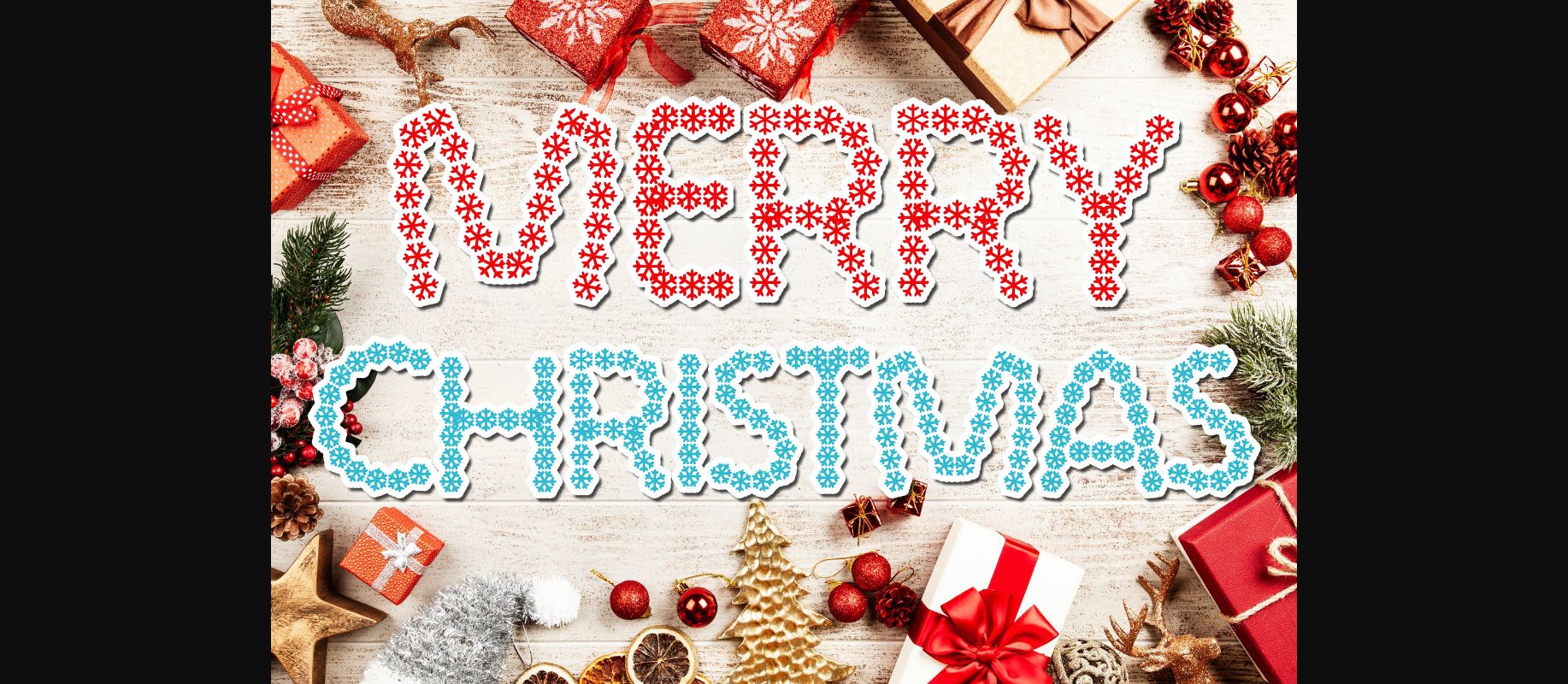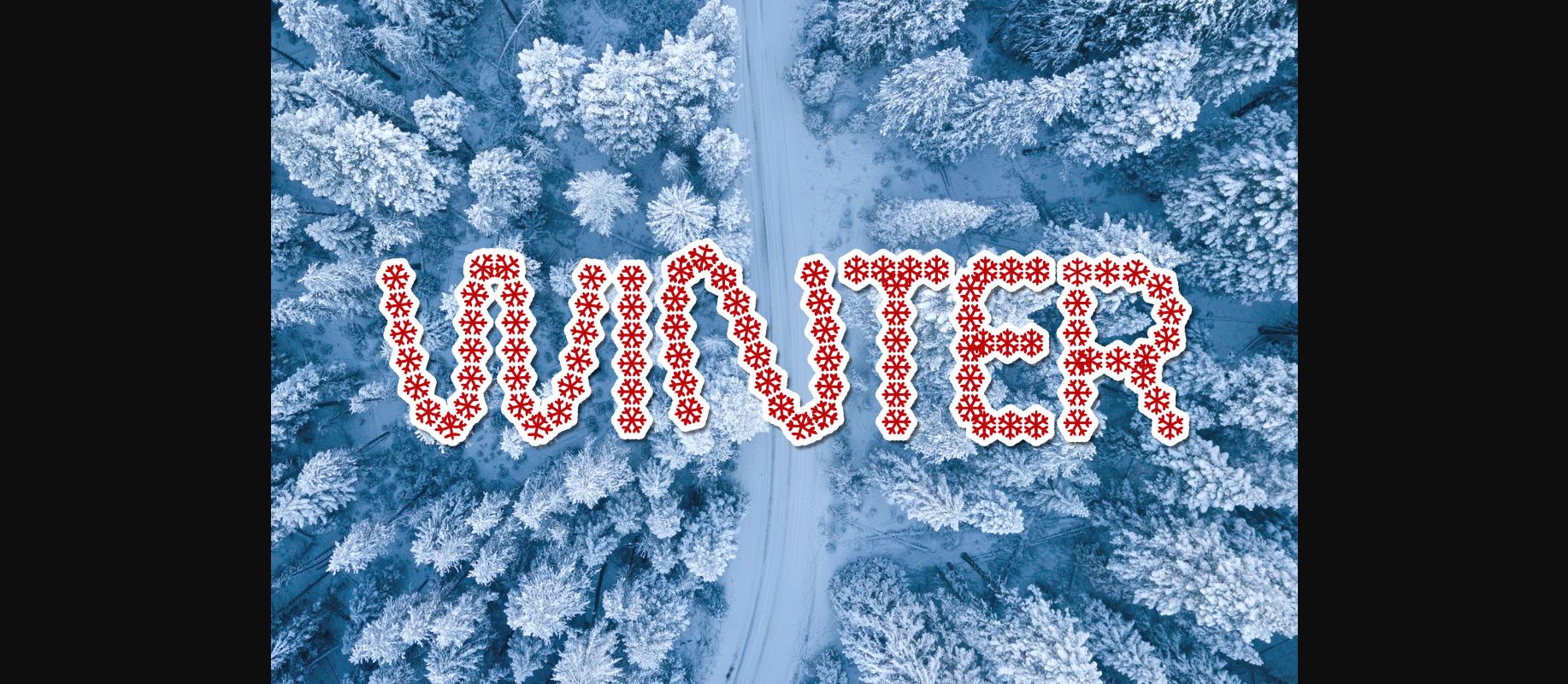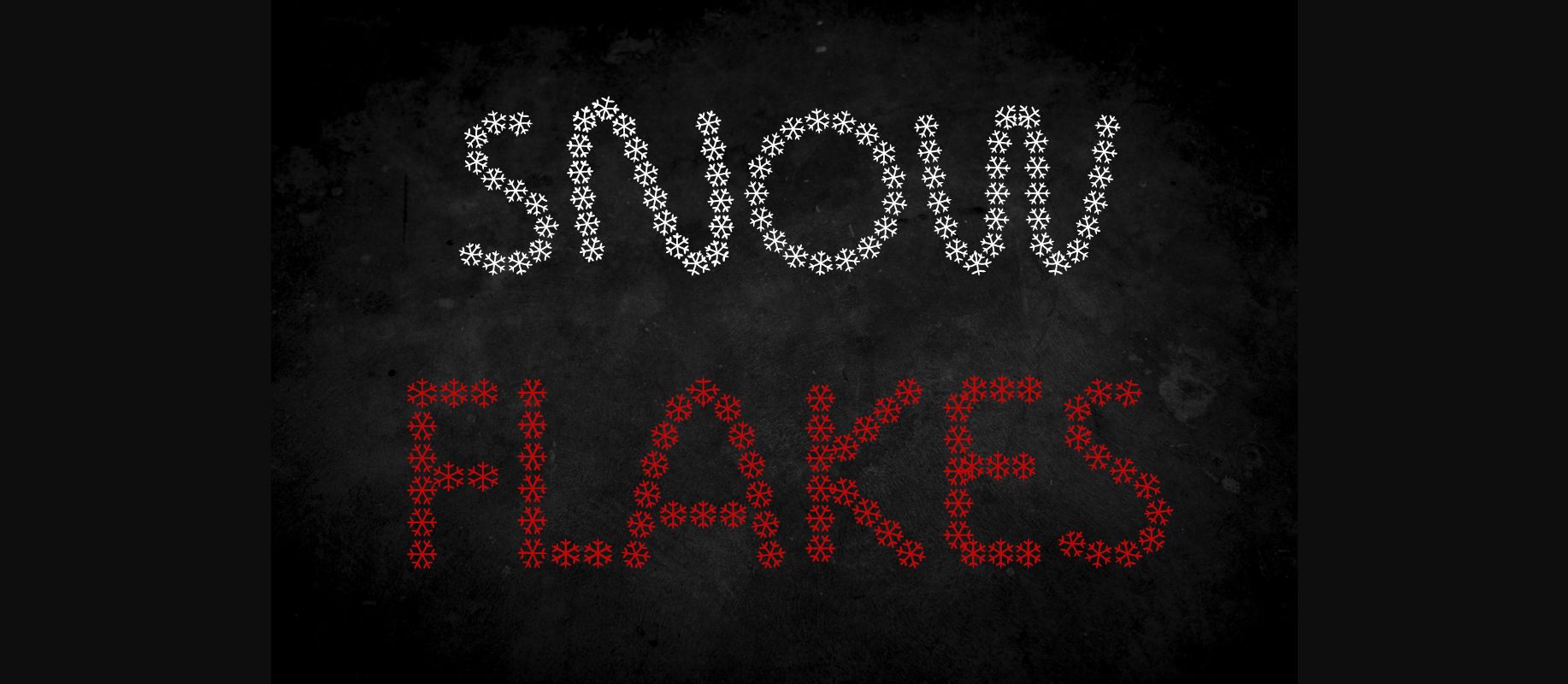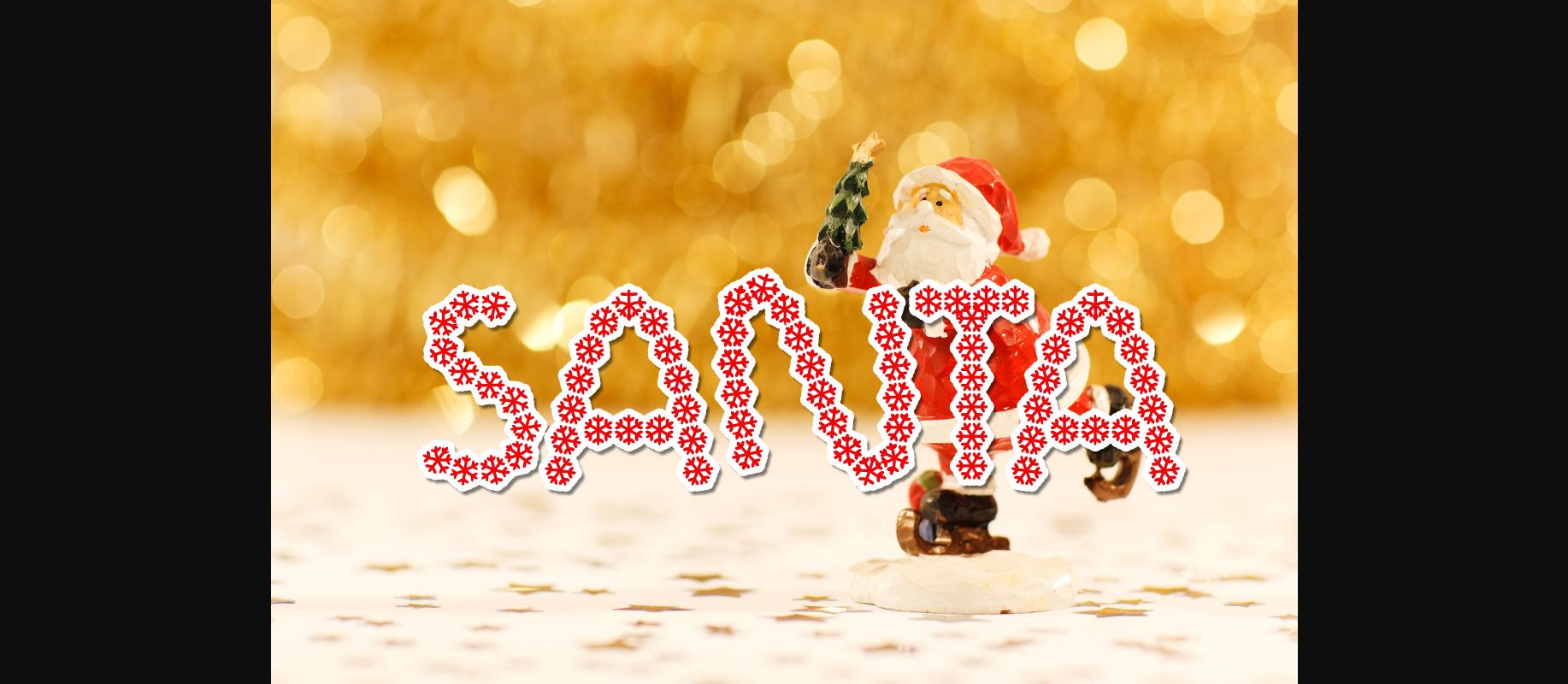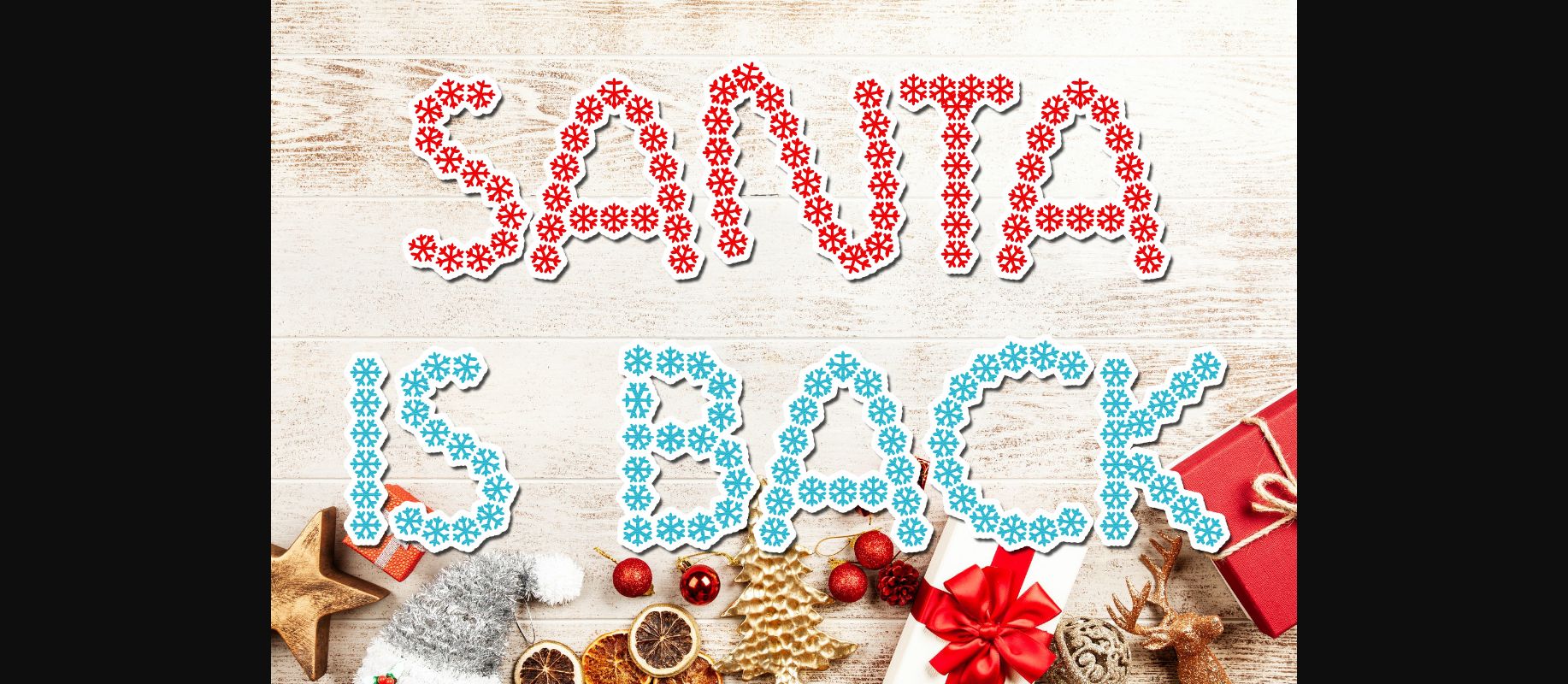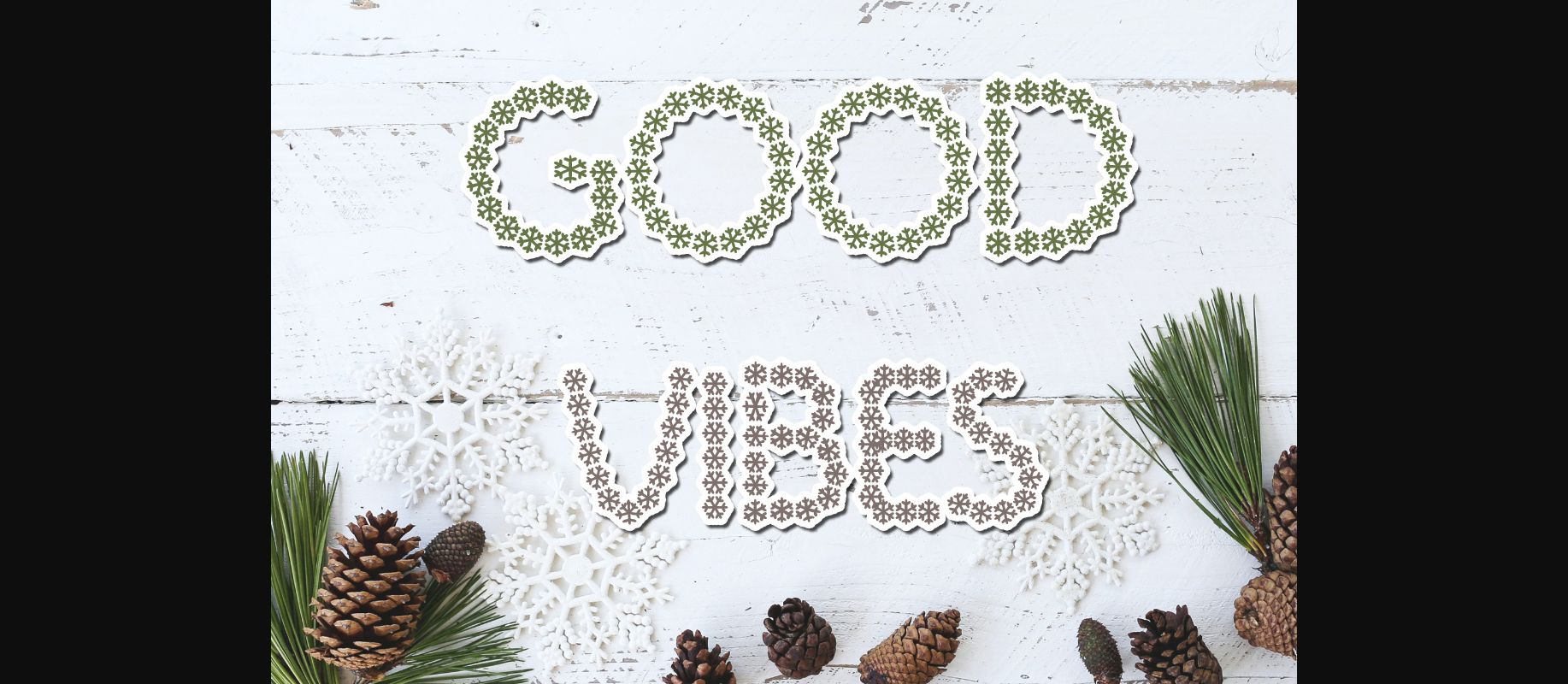
Merry Christmas Font
About Merry Christmas Font
Merry Christmas is a fun and playful decorative font with a winter/Christmas theme. It will add an incredibly joyful touch to your designs. Add this beautiful font to each of your creative ideas and notice how it makes them stand out!